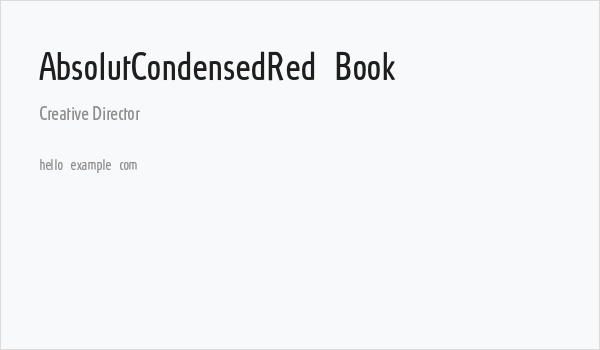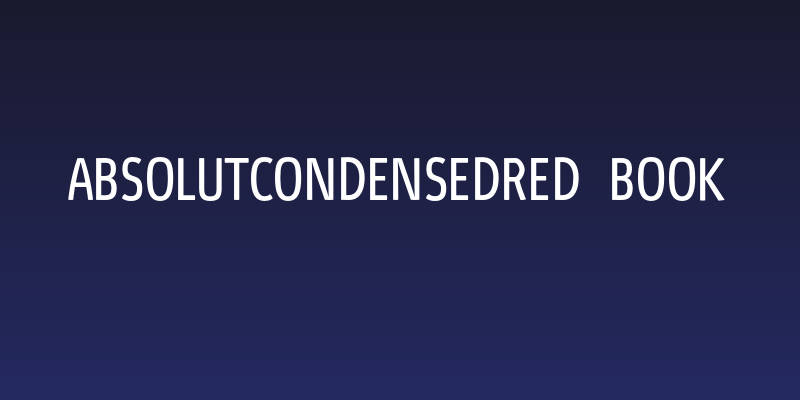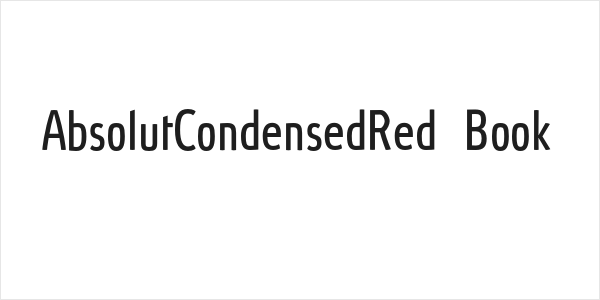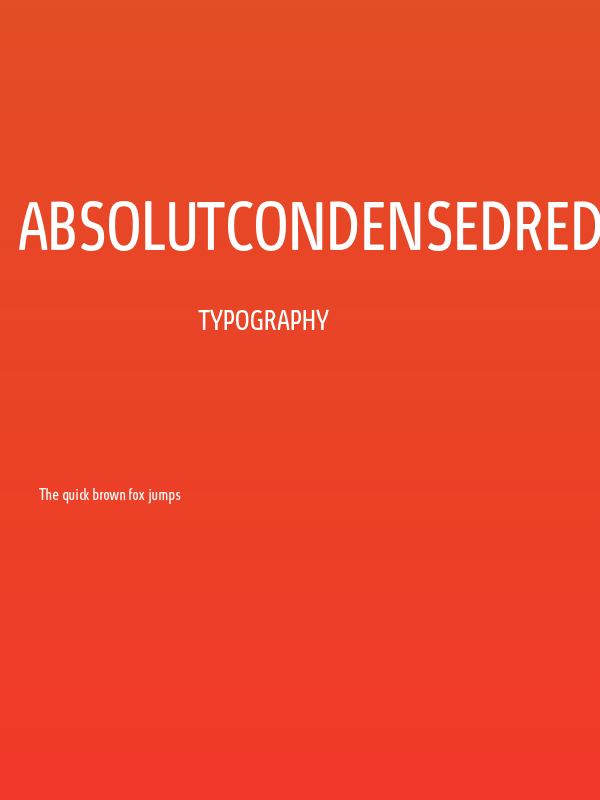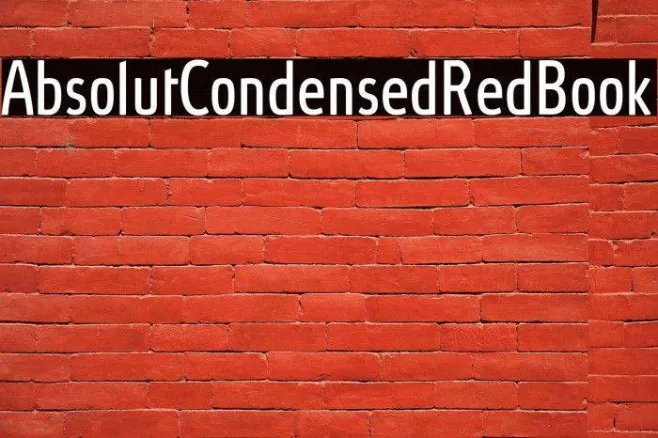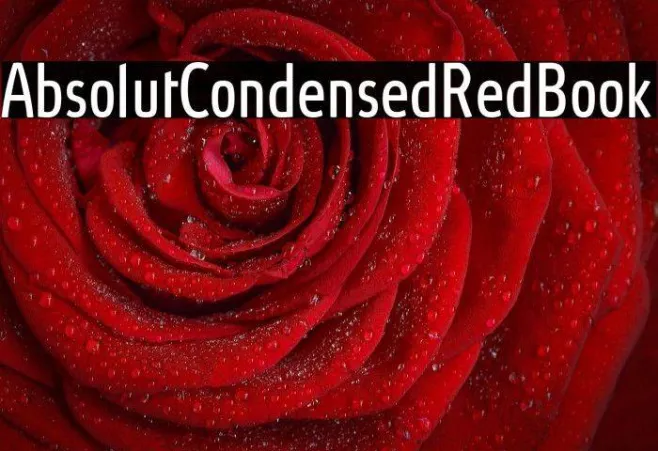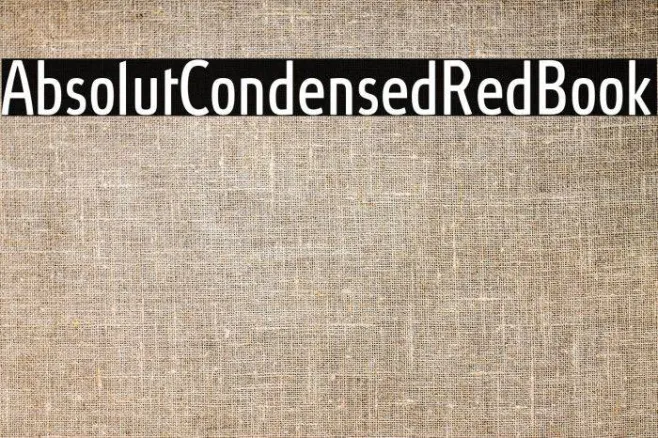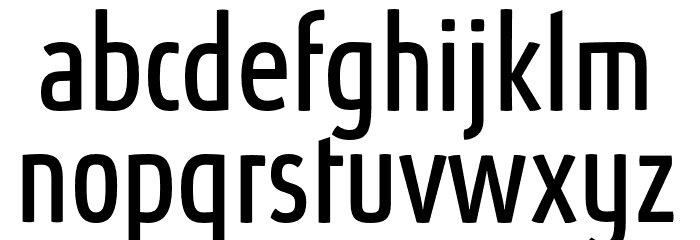
AbsolutCondensedRed-Book Font
AbsolutCondensedRed-Book Description
This font features a modern and sleek design with a condensed structure, making it ideal for space-saving applications. The characters are tall and narrow, with clean lines and minimalistic styling. The uppercase letters are uniform in height, while the lowercase letters maintain a consistent baseline, enhancing readability. The font's geometric shapes and even stroke widths give it a contemporary feel, suitable for various digital and print media. Its simplicity and clarity make it versatile for both headlines and body text, ensuring legibility across different sizes and formats.
| Proposed Projects | Ideal for branding, advertising, web design, and editorial layouts. |